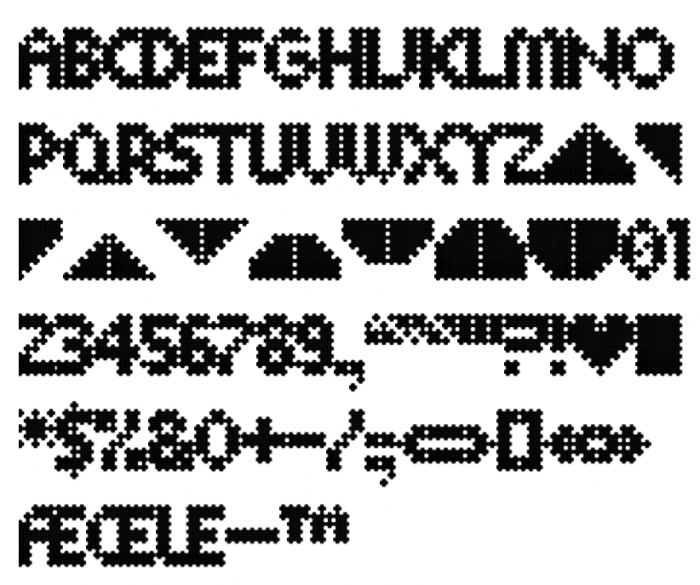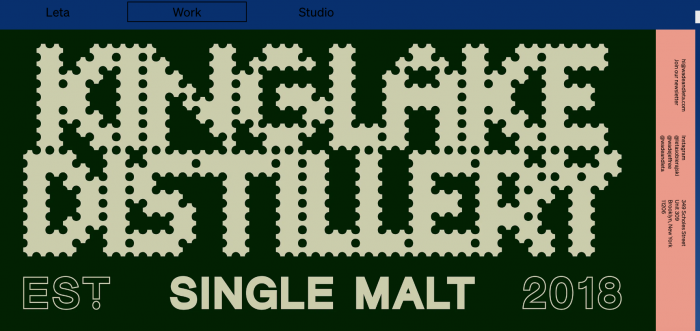
Based on this postal stamp designed by Gert Dumbar
The font in action!
The style of it makes me yearn for real stamp letter cutouts.
From the early 2008, made by nitrada and toppicked.
postcode.
The original stamp here.
Glyphs that appears in the stamp: P, O, S, T, C, D, E. The rest of the alphabet it must be created by nitrada and by you sepparatelly, I think. I'm right? Or maybe you has another original sample with more glyphs? I see too much coincidences between your glyphs and the originals from nitrada. A, B, F, K, M, U, V, W, X, Y, Z, 0, 1, 2, 3, 4, 5, 6, 7, 8, 9, $, & and more are identicals. If this was a copy you must post it, IMHO.
As much as you would believe so, I have not copied/cloned any of his glyphs. and yea I do have a couple of more images from this stamp development stages but none actually show more glyphs than the original published stamp does... all sketches show exacrly this same word.
POSTCODE by nitrada:
Two people with the same tools can find similar or same solutions, I know that. Don't misunderstand my comments, please.
I fully understood your comment, dont worry!
But this is simply what you can run into when both revisiting something! The risk of two very identical works. But If I would've copied him I would mention it by crediting the original.
I have done this in the past as well, even for as little as just one glyph (not cloned or copied but a redrawn one) but I credited the original!
Both of you have clearly followed the design brief of the designer(s) and were able to complete what clearly hadn't been required to be shown on the stamp. I think this easily happens when a font design starts with such an obvious/precise departure point.
It has a really nice effect...
@ Aolien: Spot on! And this design in particular (with the puchholes) doesn't allow room for huge variations without ruining ballance!
@ Se7en: Yep, its a very cool lettering.
@Sed4tives: FontStruct in use!